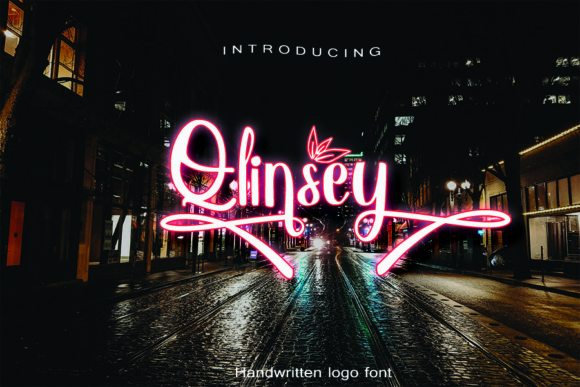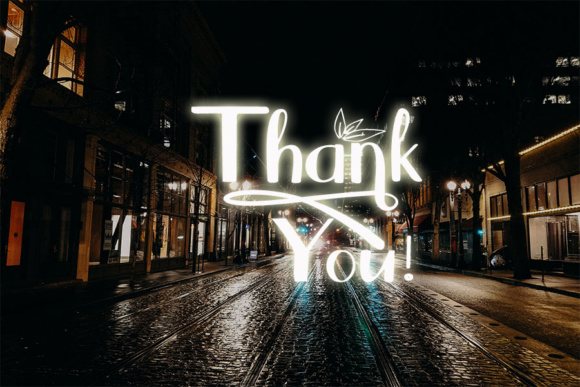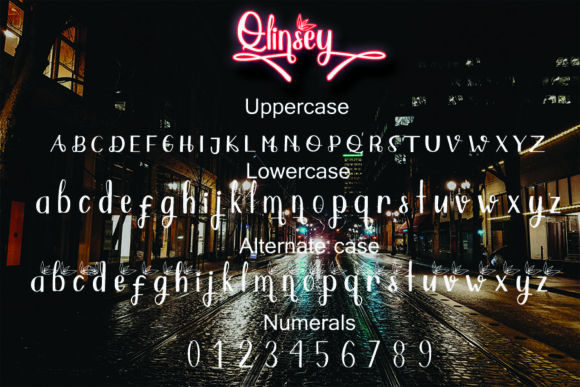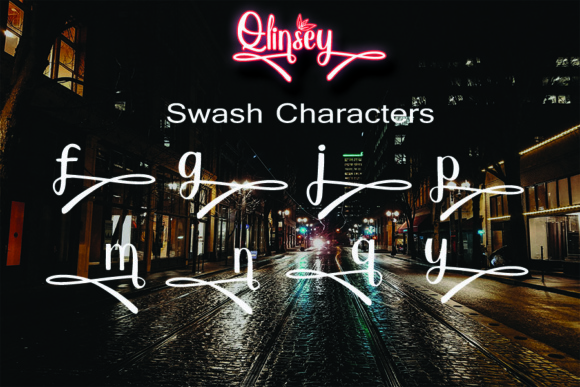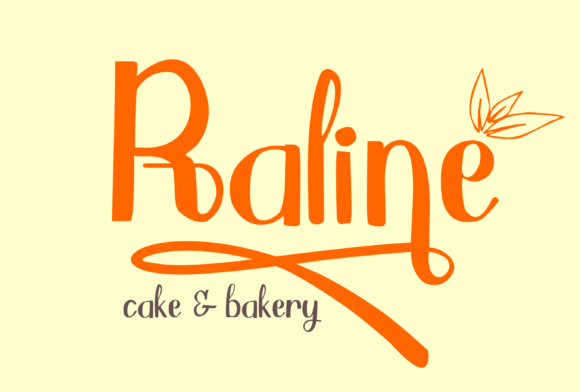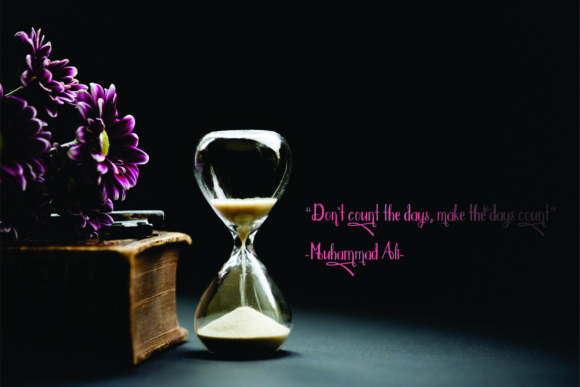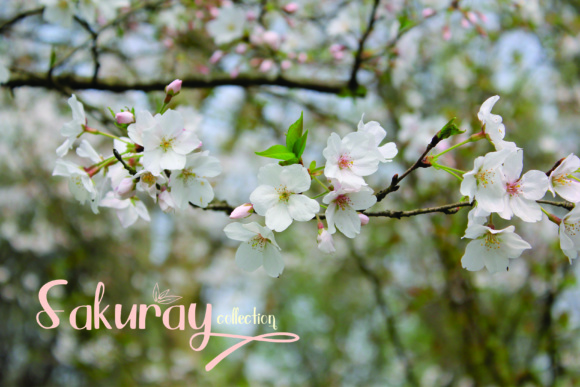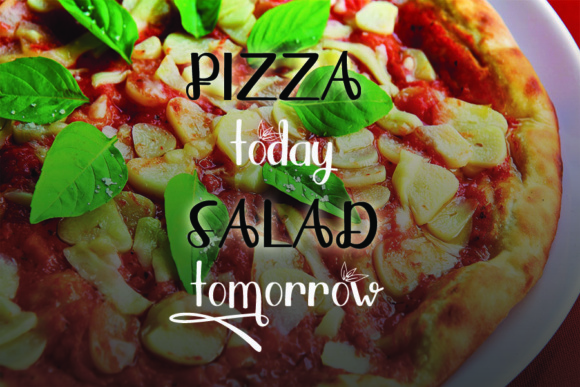
Qlinsey Font
About Qlinsey Font
Qlinsey is Clean Handwritten Font type . which mean you can easily make magnificent beautiful and modern Design project , Logos , Cards and much more. It comes with many Swashes and Authentic Leaf Alternates cases so you can choose many types with your Design…